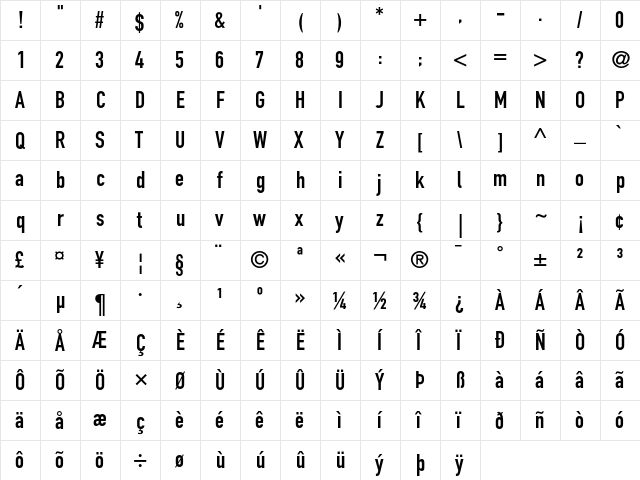
DINSchrift Regular
Design Context for DINSchrift Typeface
DINSchrift offers clean, dependable letterforms without strong stylistic allegiance, making it a practical choice for designers who need flexibility.